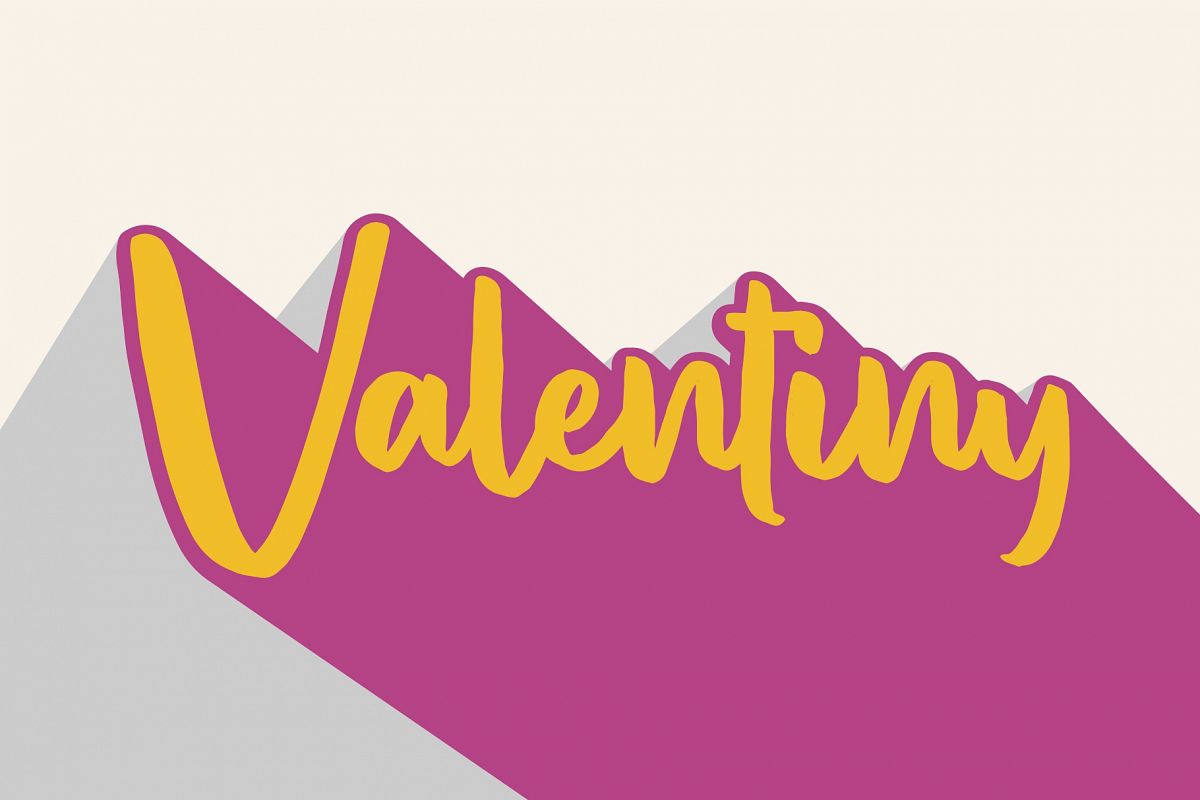
VALENTINY Font Duo
Introducing Valentiny!Valentiny is a ne handwritten script font duo. Valentiny is perfectly suited for stationery, logos, t-shirt, paper, print design, website header, photo frame, flyer, music cover, poster, image slider and much more.What's Included?
• Duo fonts (Different Uppercase on Valentiny Two)